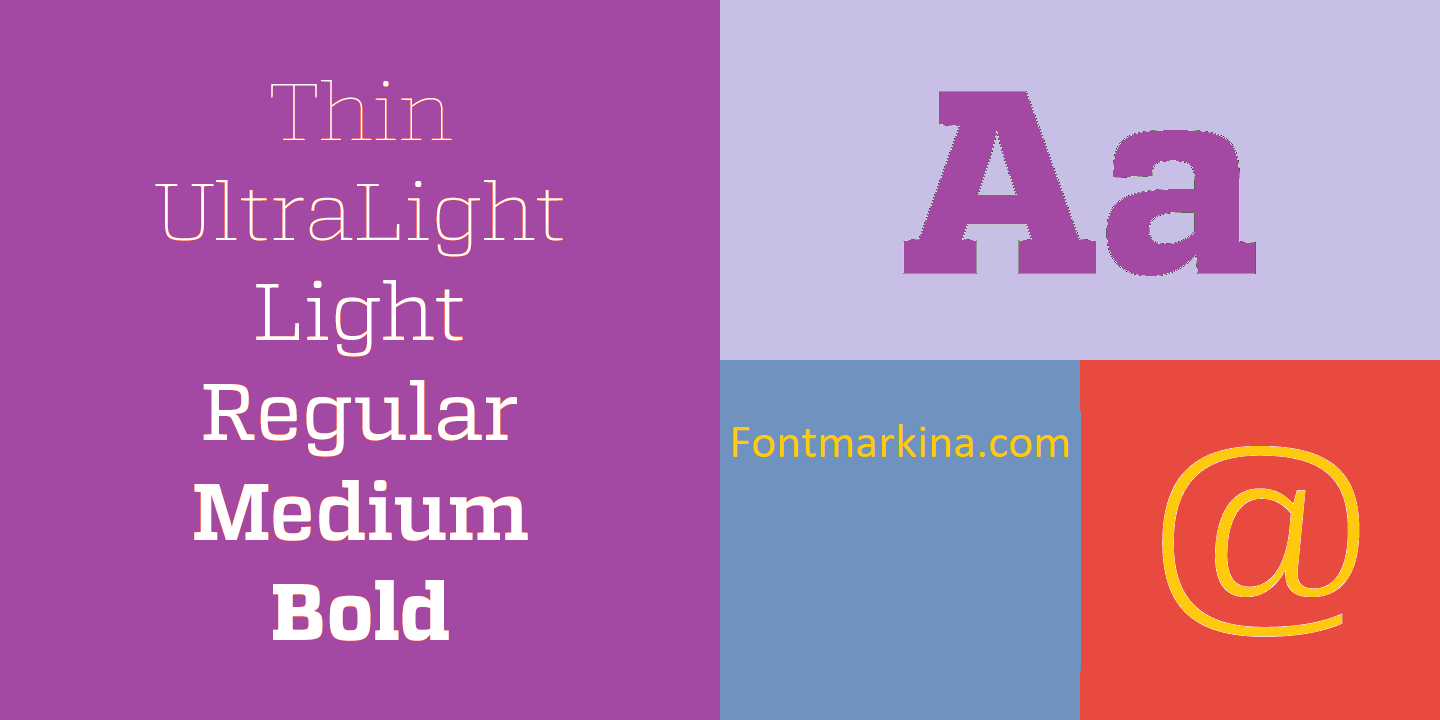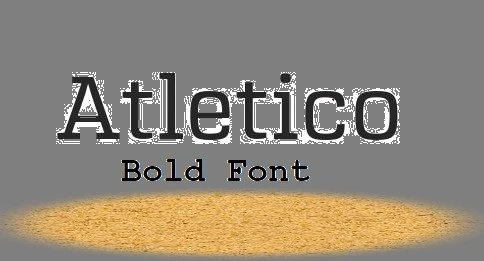
Today, we discuss the very classic typeface that has a lot of advanced features, This texture is known under the name Atletico Bold Font. Sascha Timplan Lukas Bischoff is the original and the main developer of this family.
With its clean textures, this texture consists of six extraordinary advanced styles. Its styles are regular, bold, light, italic, semibold, and black. You can utilize CSS, SVG, and HTML. One amazing quality is that you can use it with all Adobe Fonts. It lies in the serif family of fonts.
Beau font has the same texture and style as Atletico Bold Font. The online text generator is a very helpful feature of this family. Its letters and characters make it more effective and classic.
Usage of Atletico Bold Font
Because of different styles and features, everyone shows his attention toward this family. Mostly all international and higher companies, use this typeface for their product designs. In magazine printing, the use of this texture is very important.
YouTubers use it for video thumbnails, video editing, photo editing, and much more. At present time it is also put for the logos designs related to different fields and brands. If it is your own desire, to get a clear and more classic response and results then use Adobe hebrew font that is similar to this family by making a pairing. In short, the Atletico Bold typeface is used every field of design.
| Designer | Sascha Timplan Lukas Bischoff |
| Type | Serif |
Is there any alternative to Atletico Bold Font?
Yes, the aachen font has the same style as this family. Both typefaces are similar to each other.
Where we can use Atletico Bold Font?
This awesome texture is used for many places and locations. You can use all creative products and brands.